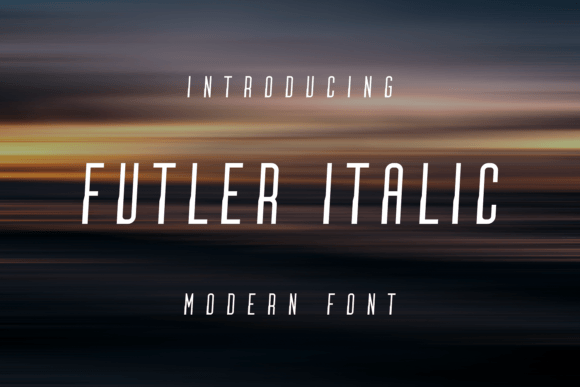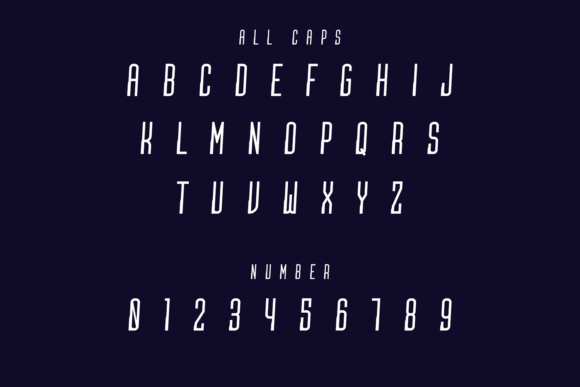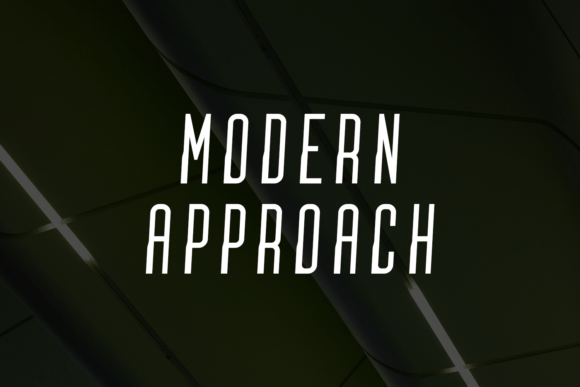
The Font That Sets Your Creativity Free
Do you remember that moment when you stumbled upon the perfect font for your project? The one that instantly elevates your design and transports you to a world of limitless possibilities? It’s that feeling we all crave as designers – the rush of creativity and the excitement of bringing our ideas to life.
Enter the Futler Italic Font, a display font that’s about to become your new best friend. With its playful and unique style, it’s the perfect addition to any font library. Whether you’re working on a branding project, a social media campaign, or simply creating art for fun, Futler Italic Font has the potential to take your creations to the next level.
Futler Italic Font Key Features
- Font Family: Futler Italic
- Unique Characteristics:
- Distinctive Italic style with subtle flair and elegance
- Optimized for readability in both print and digital media
- Perfect for use in advertising, packaging, and editorial design
Futler Italic Font Review
Overall, I think Futler Italic is a decent font choice, but it has its strengths and weaknesses. Here’s my honest review.
- The font’s unique, vintage flair is a great addition to any project that needs a touch of elegance.
- Its readability is excellent, even at smaller font sizes.
- Futler Italic is highly legible in both digital and print media.
- The font’s availability is limited, which might make it difficult to find in certain software or platforms.
- Some users might find the font’s vintage feel too old-fashioned or dated.
- The font’s italic style can be overwhelming if used excessively.
Futler Italic is a solid choice for projects that need a sophisticated, elegant feel. While it has its limitations, its unique style and excellent readability make it a great addition to any designer’s toolkit. However, its limited availability and potential overuse of the italic style are things to consider.
Tips for Getting the Most Out of Futler Italic Font
Here are some tips to help you get the most out of Futler Italic font:
- Use it for headings and titles to add a touch of elegance and sophistication.
- Combine it with other fonts to create a unique and eye-catching design.
- Experiment with different font sizes and colors to achieve the desired effect.
Futler Italic font is commonly used in:
- Designing wedding invitations and wedding stationery.
Alternatives to Futler Italic Font for Designers
1. Carolyna Pro Italic
Carolyna Pro Italic is a modern script font perfect for creating elegant and sophisticated designs. It’s ideal for wedding invitations, luxury branding, and high-end packaging. This font features connected letters and subtle flourishes, making it a great choice for designers who want to add a touch of luxury to their work.
Compared to Futler Italic Font, Carolyna Pro Italic has a more refined and polished look. While Futler Italic Font has a more rustic feel, Carolyna Pro Italic is sleek and sophisticated.
2. Alex Brush Italic
Alex Brush Italic is a handwritten font that exudes creativity and charm. It’s perfect for designers who want to add a personal touch to their work. This font features unique letterforms and expressive connections, making it ideal for branding, packaging, and editorial designs.
Compared to Futler Italic Font, Alex Brush Italic has a more organic and handmade feel. While Futler Italic Font is more formal, Alex Brush Italic is more relaxed and casual.
3. Great Vibes Italic
Great Vibes Italic is a script font that’s perfect for creating energetic and playful designs. It’s ideal for designers who want to add a touch of fun and whimsy to their work. This font features bold and expressive letterforms, making it perfect for branding, advertising, and social media designs.
Q: Can I customize Futler Italic to fit my specific design needs?
Yes, Futler Italic can be customized to fit your specific design needs. You can adjust the font’s weight, width, and style to suit your project requirements. Additionally, you can use font editing software or hire a professional font editor to create custom variations of Futler Italic.